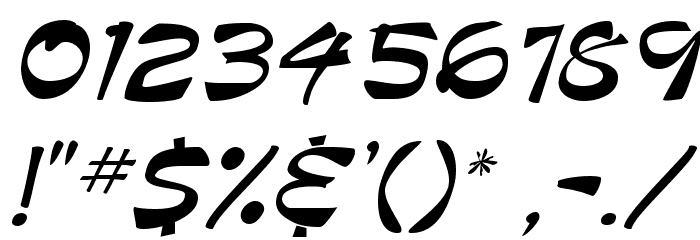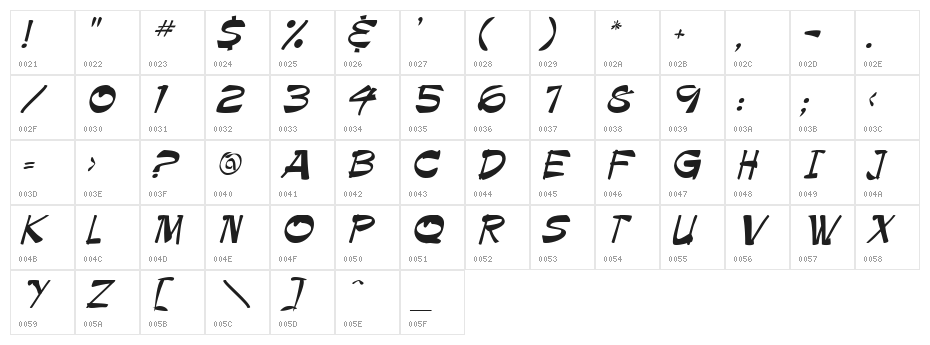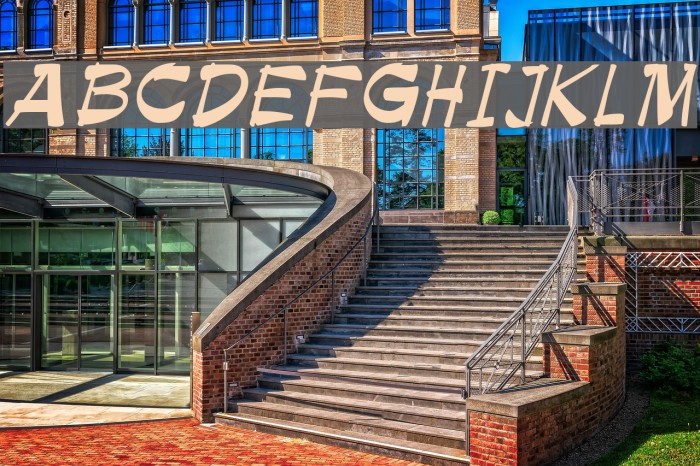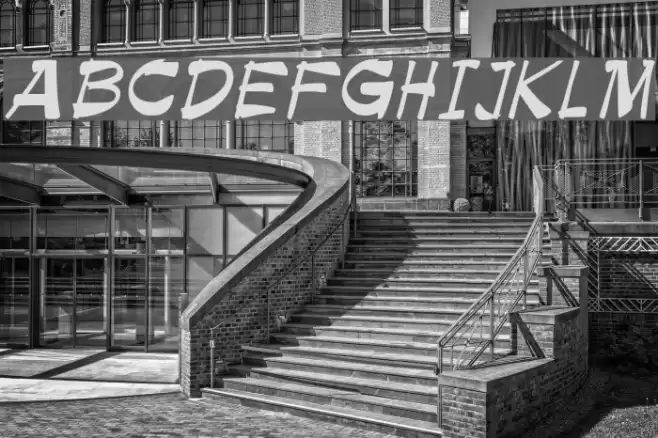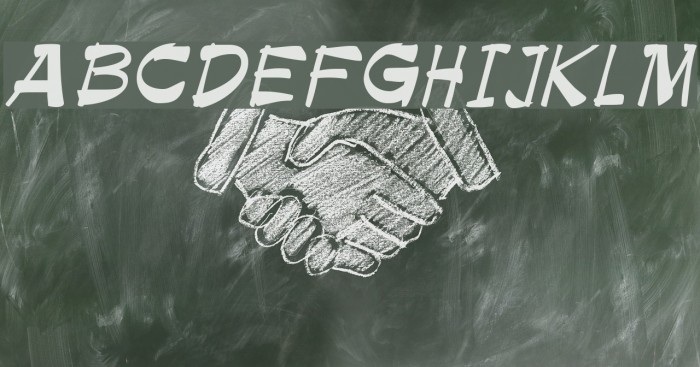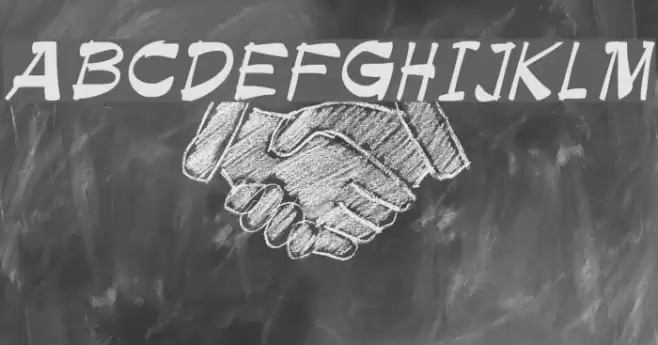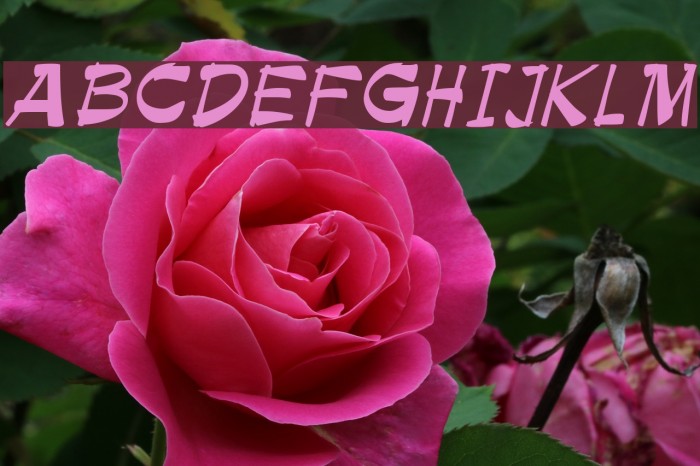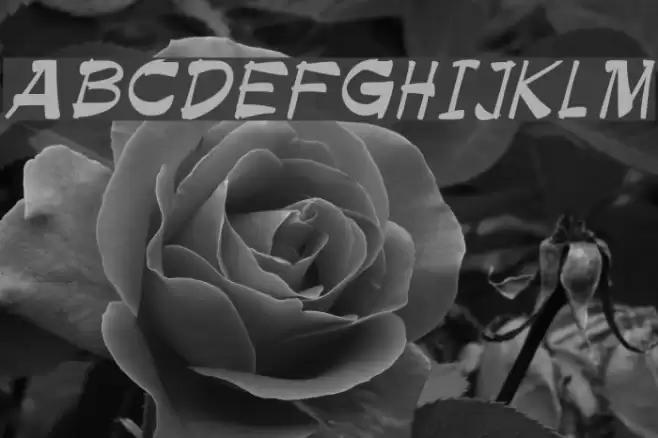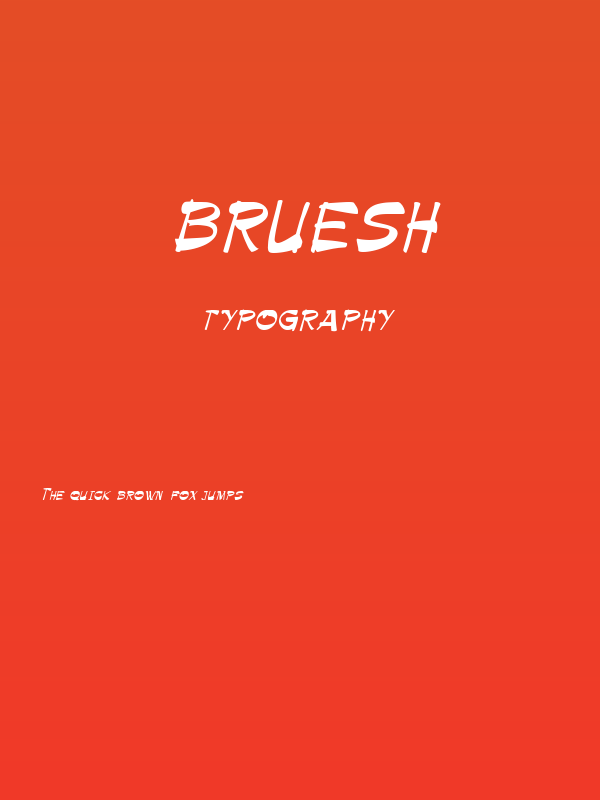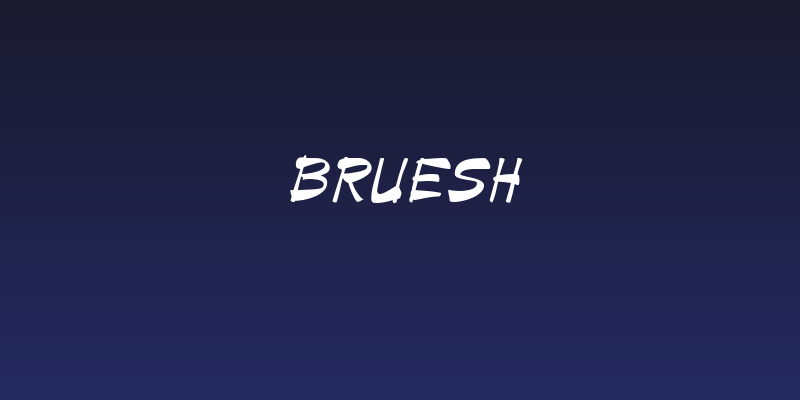
Bruesh Font
Bruesh Description
This font exhibits a dynamic and energetic style, characterized by its brush-like strokes that convey a sense of movement and fluidity. The uppercase and lowercase letters maintain a consistent slant, adding to the overall sense of motion. The numerals and special characters follow the same stylistic approach, ensuring uniformity across all glyphs. The bold strokes and varying thicknesses give the font a high contrast, making it stand out prominently. The playful and artistic nature of the design makes it suitable for creative and expressive projects.
| Proposed Projects | Ideal for branding, posters, artistic projects, and any design requiring a bold, expressive typeface. |